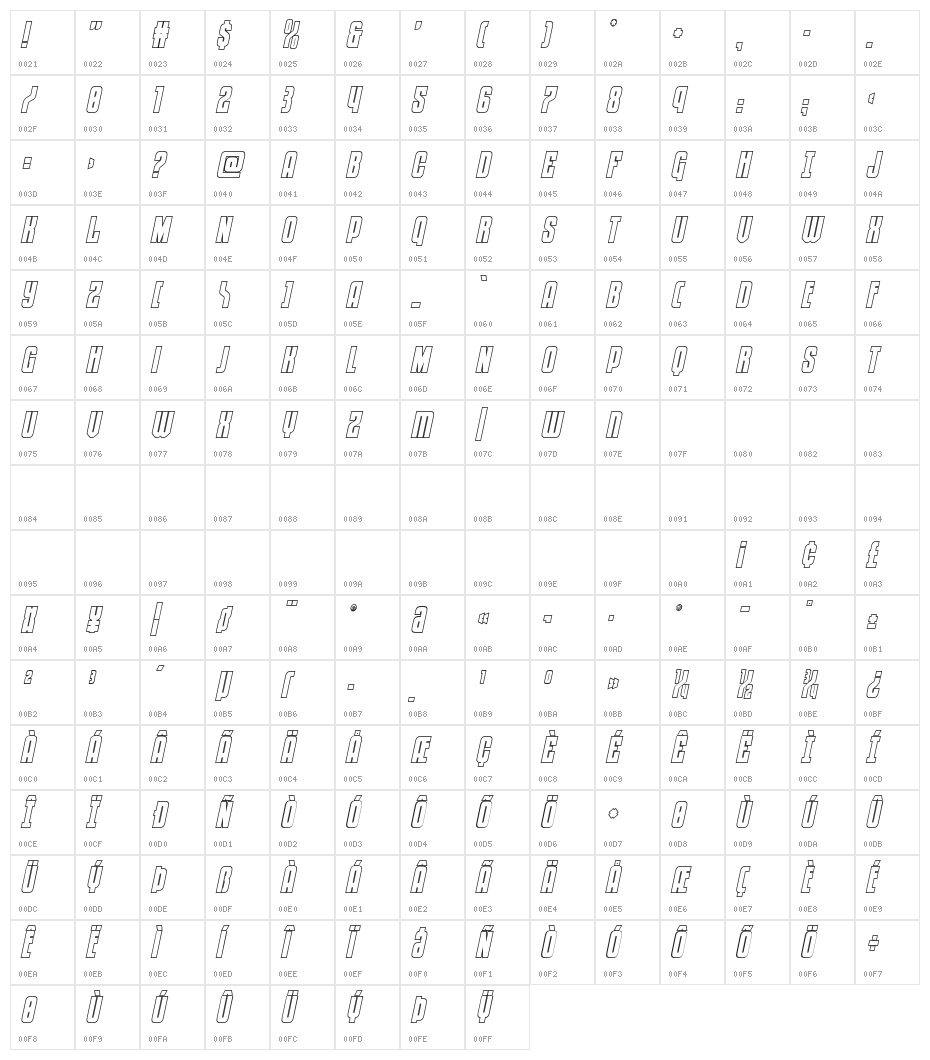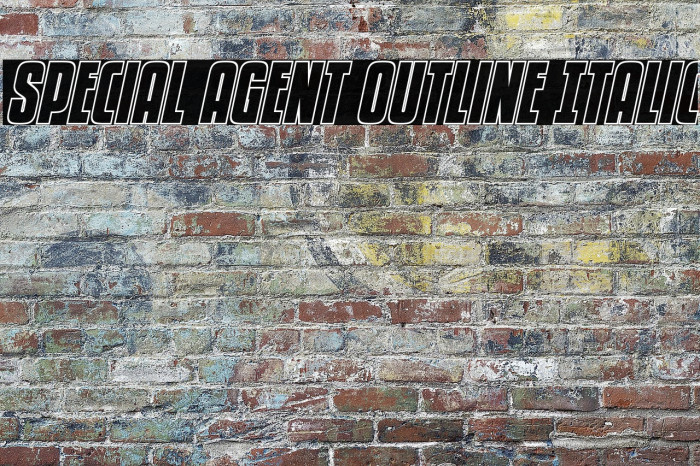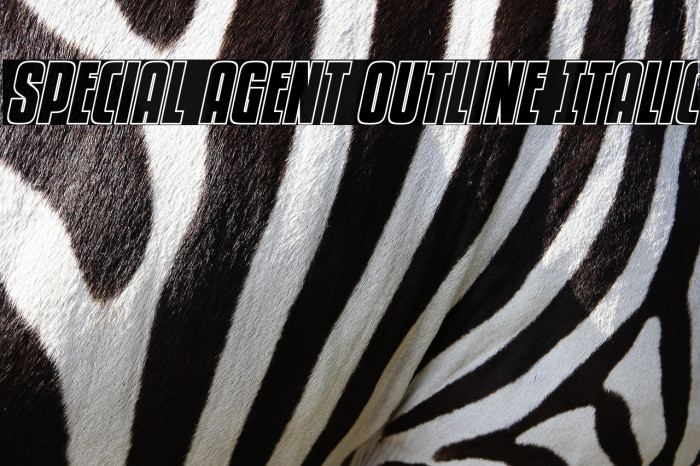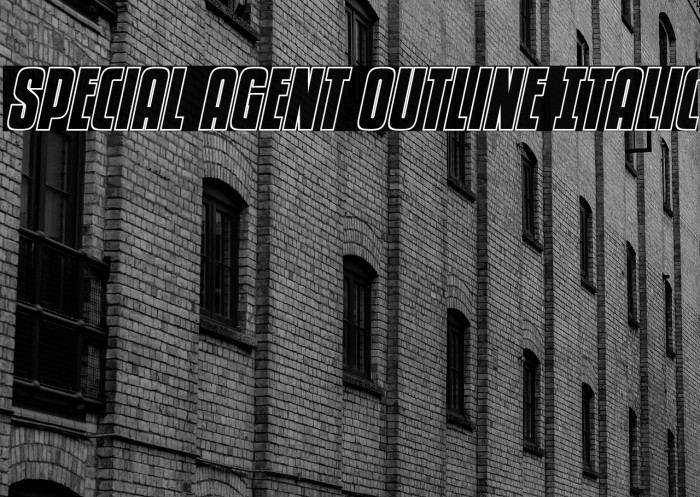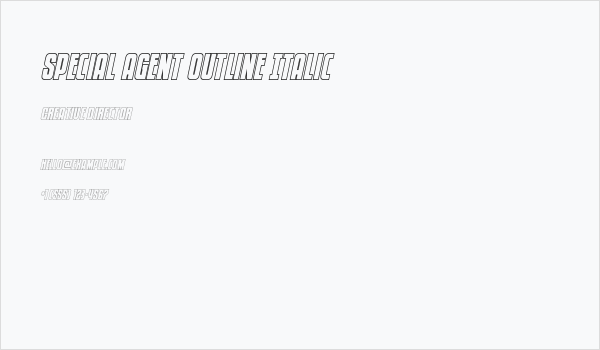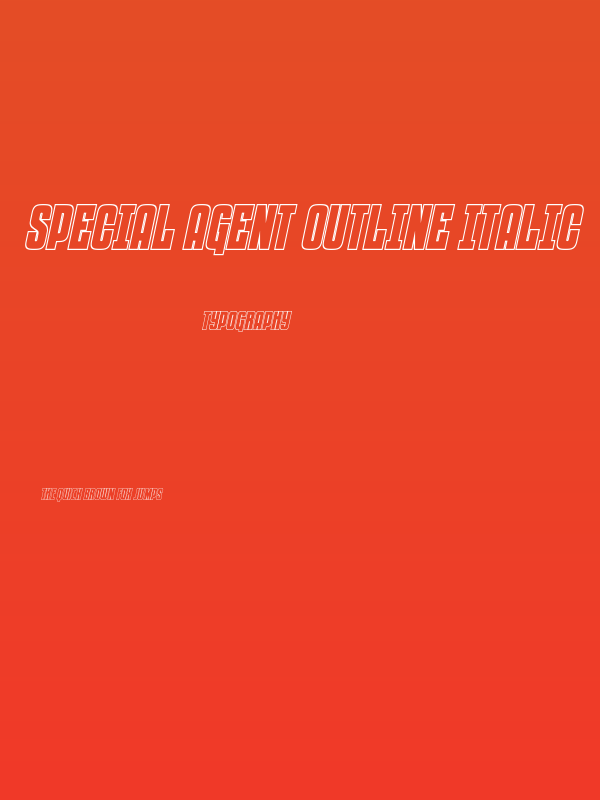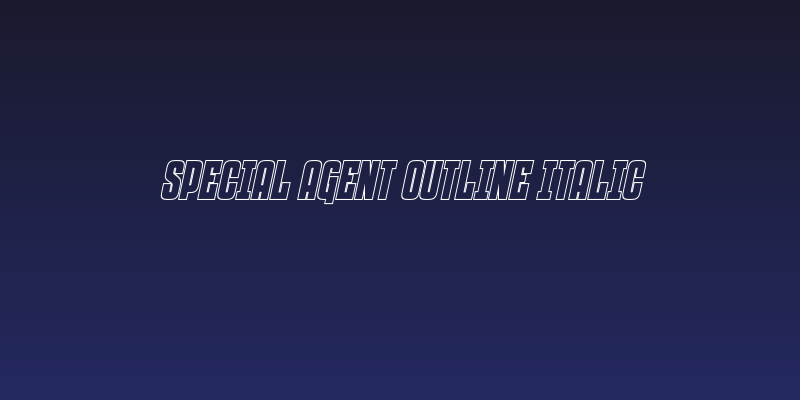
Special Agent Outline Italic Font
Special Agent Outline Italic Description
This font features a bold, outlined style with a distinct italic slant, giving it a dynamic and energetic appearance. The uppercase and lowercase letters are designed with a consistent outline that enhances readability while maintaining a unique aesthetic. The numbers and special characters follow the same outlined and italicized style, ensuring uniformity across all glyphs. The font's boldness and outline make it stand out, making it ideal for attention-grabbing designs. Its modern and slightly futuristic look is perfect for projects that require a strong visual impact.
| Proposed Projects | Ideal for posters, headlines, branding, and any design that requires a bold and modern look. |